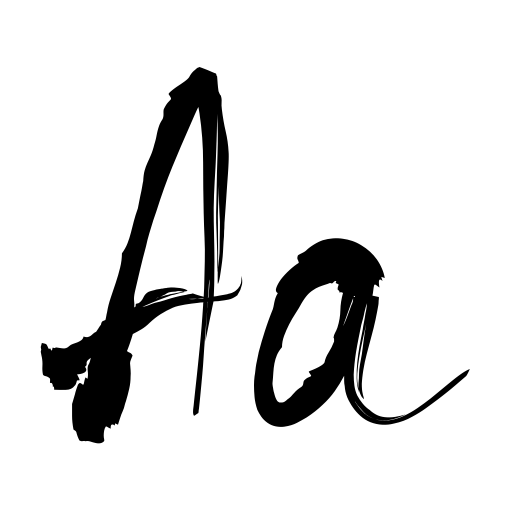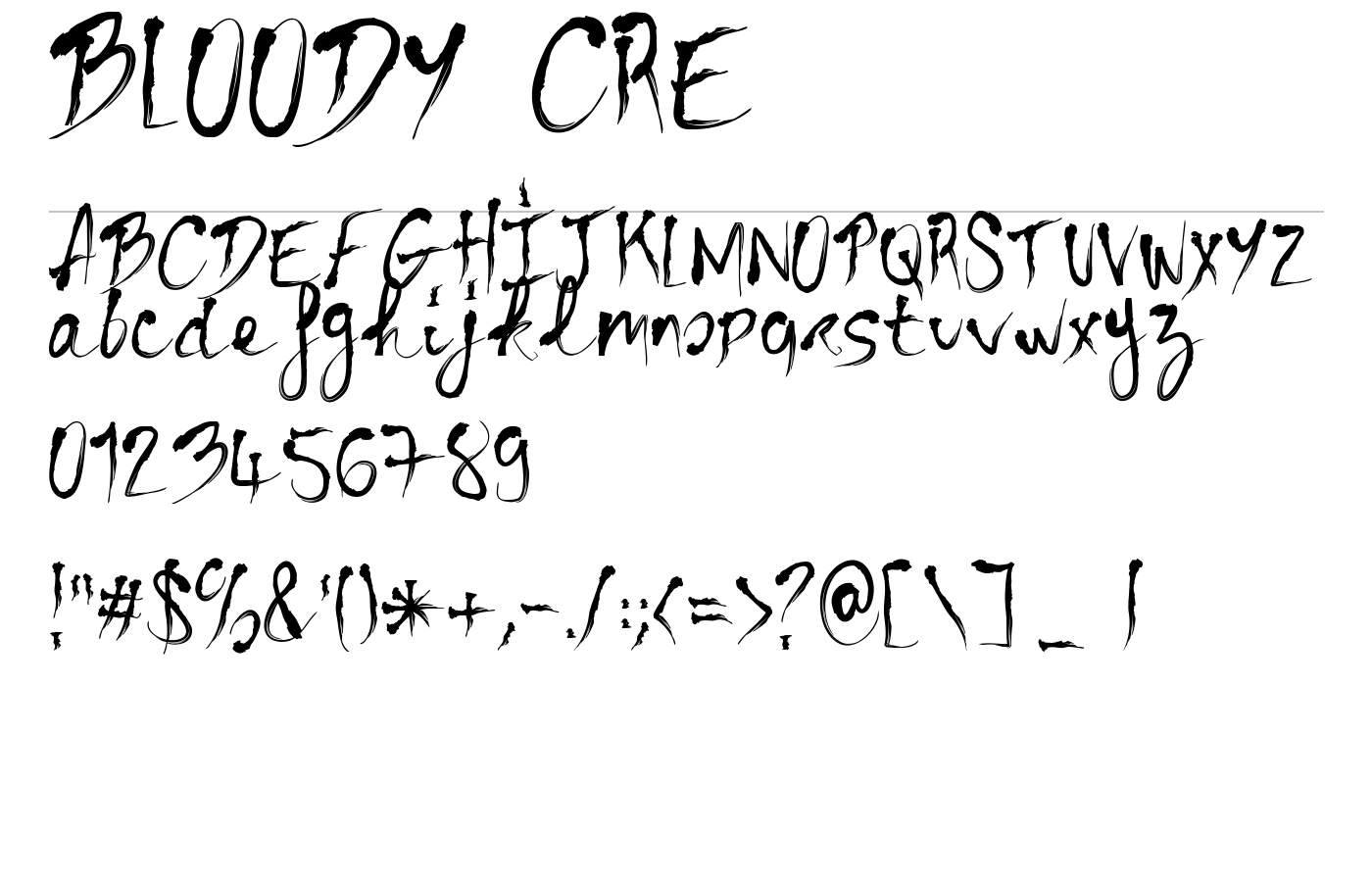
Bloody CRE is a hand-drawn script font that feels raw and edgy, with irregular, sharp strokes resembling dripping ink or paint. Its tall, narrow letterforms with rough edges create a gritty, expressive mood perfect for horror, thriller, or underground-themed designs. This font works best for eye-catching headlines, posters, or branding that needs a bold, intense personality.
BLOODY CRE Font
About BLOODY CRE Font